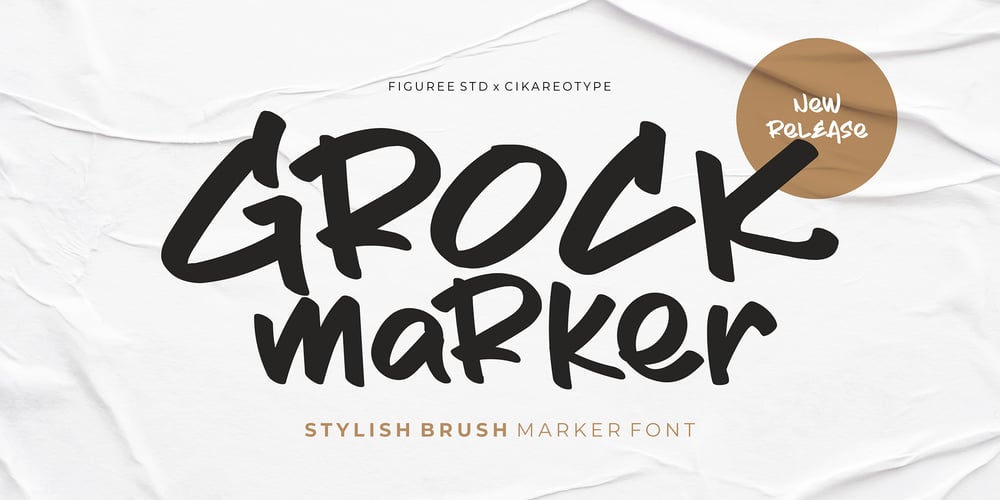
Grock Marker
Grock Marker font
Grock Marker Font Family was designed by Icep Anwar Fadhil and published by Figuree Studio. Grock Marker contains 1 styles and family package options. Grock Marker is a Stylish brush marker font. Made in combination with hand lettering, it comes with dramatic movement and it’s great for any next creative project that needs a handwritten and natural touch.It is ideal for logos, handwritten quotes, product packaging, header, poster, merchandise, social media & greeting cards.With your purchase you get: Uppercase and Lowercase Characters Numbers and Punctuation Marks Support for MAC or PC Simple installation for Adobe Illustrator, Corel Draw, Photoshop, or Procreate (New Updated) Support Multilanguage I hope you make something cool with it. If you have any questions don’t hesitate to ask!Stay Classy! Fadhil – Figuree Studio